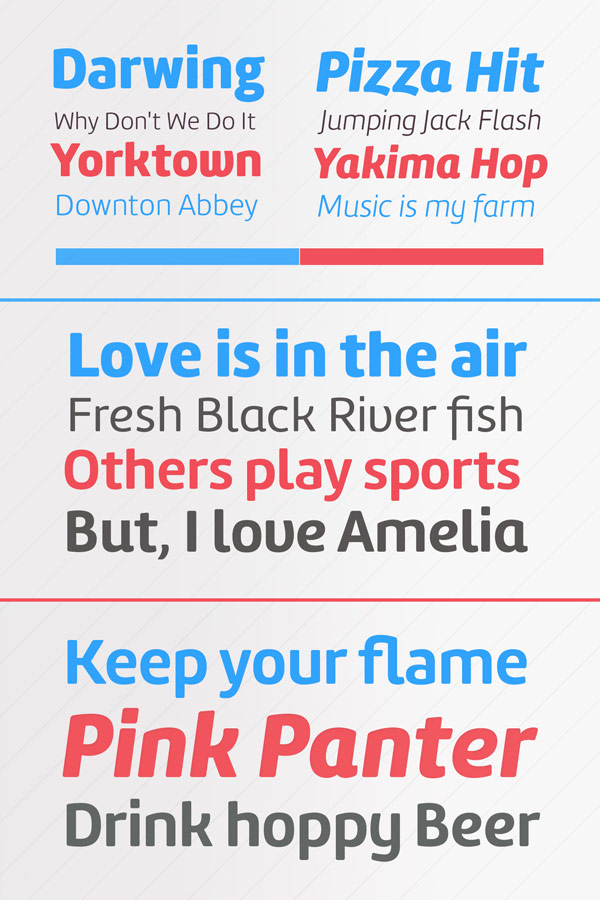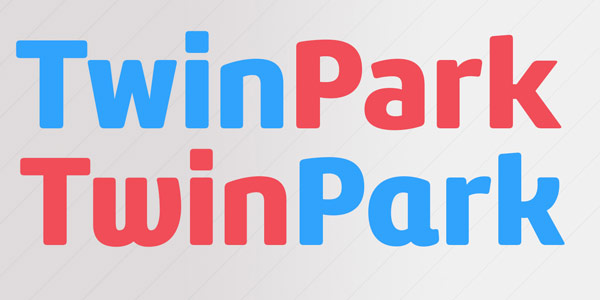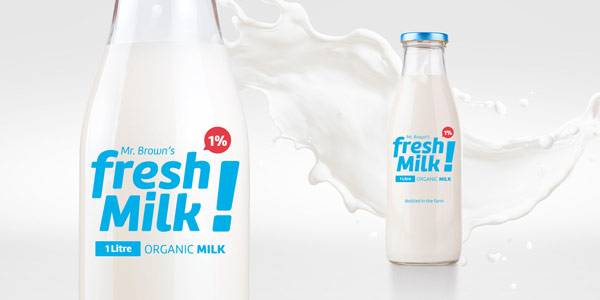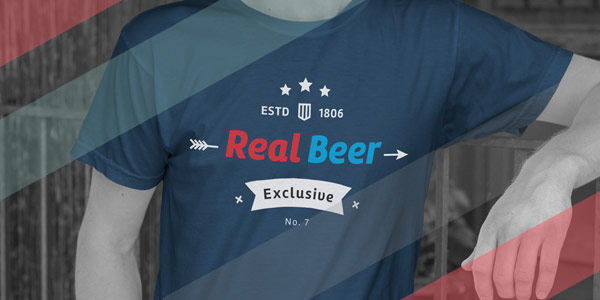
The Amelia Rounded font family, a geometric sans serif with soft, humanistic strokes.
The Amelia Rounded font family was designed by Martin Sommaruga of foundry TipoType in 2015. The family is based on a clean sans serif typeface with soft, humanistic strokes. Because of its contrasting styles and numerous weights (ranging from Light to Black), you can use it for both body and display text. The Amelia Rounded font family is equipped with several OpenType features such as Ligatures and alternate letters to offer flexibility and diversity for your typographic projects. You can get this family as webfont and desktop font version. For more, please follow the link below.